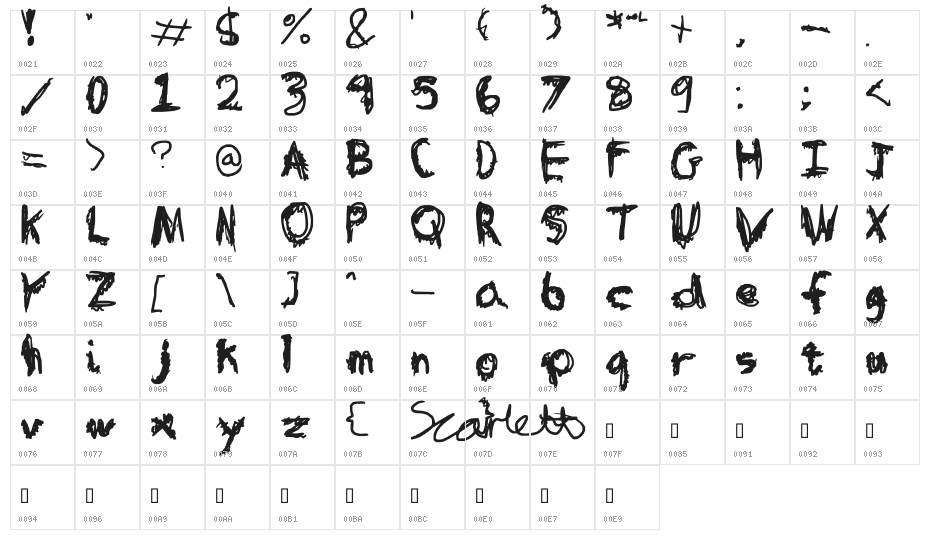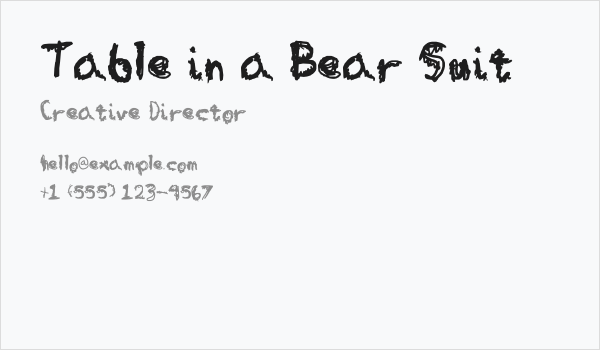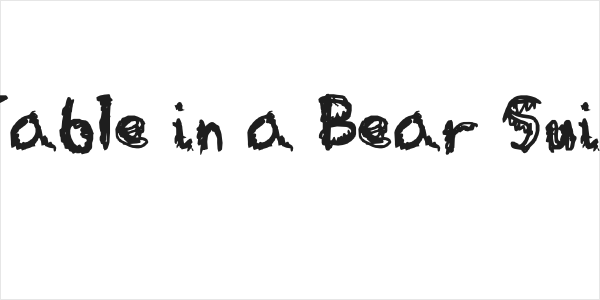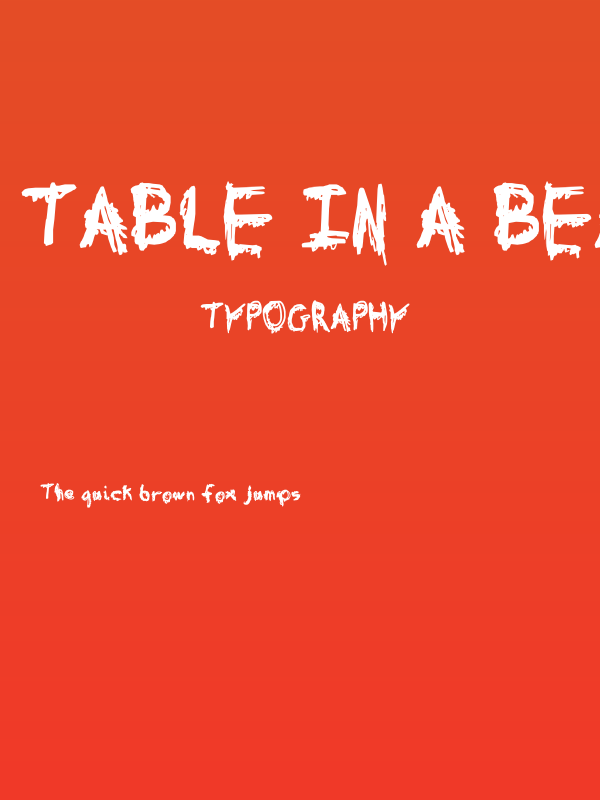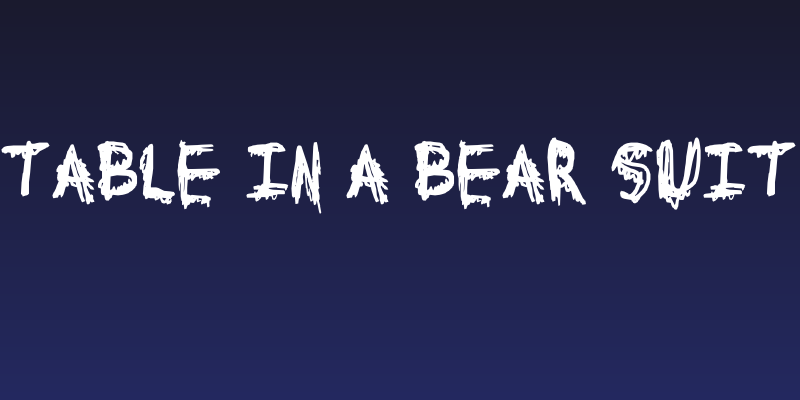
Table in a Bear Suit Font
Table in a Bear Suit Description
This font features a highly textured and distressed appearance, reminiscent of rough brush strokes or splattered ink. The characters are bold and irregular, giving a sense of chaotic energy and movement. Each letter has a unique form, with jagged edges and varying thickness, contributing to a dynamic and expressive style. The numbers and special characters follow the same rugged aesthetic, ensuring consistency across all glyphs. This font is ideal for projects that require a bold statement or an edgy, artistic touch.
| Proposed Projects | Ideal for album covers, street art-inspired designs, edgy posters, and creative branding projects. |